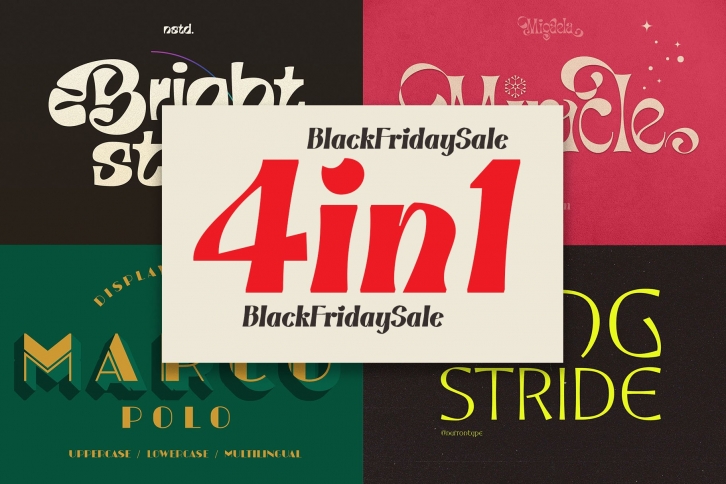
Miracle Black Friday Bundle Sale is a great font that was designed by Nurrontype. Imagine the amount of combinations you can create using this font! The archive is 1.80 MB and it was released on November 20, 2021. Miracle Black Friday Bundle Sale looks beautiful on wedding invitations, greeting cards, logos, posters, labels, t-shirt designs, logos, business cards and is perfect for use in ink or watercolor works, fashion, magazines, packaging and food menus, children's books and more!